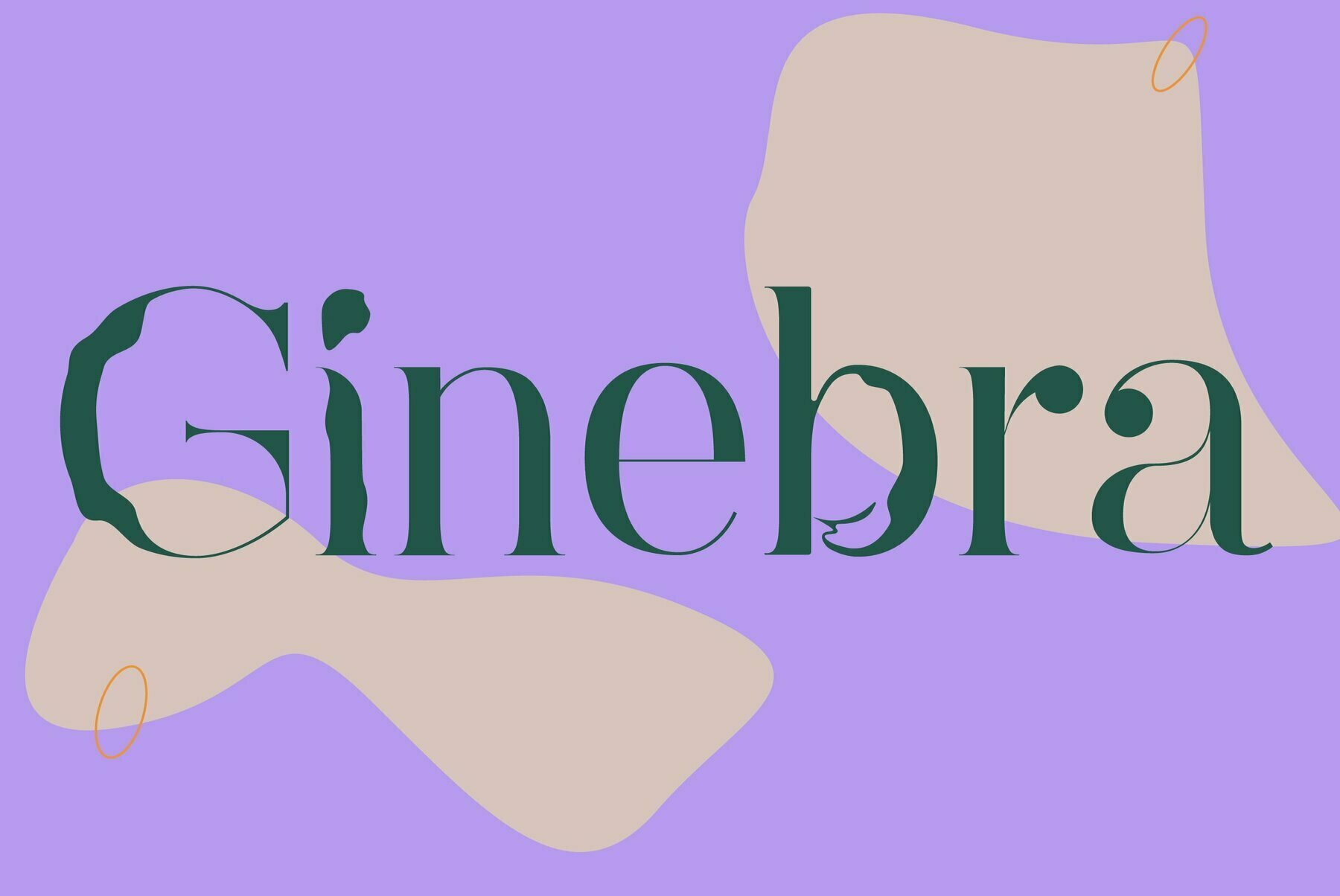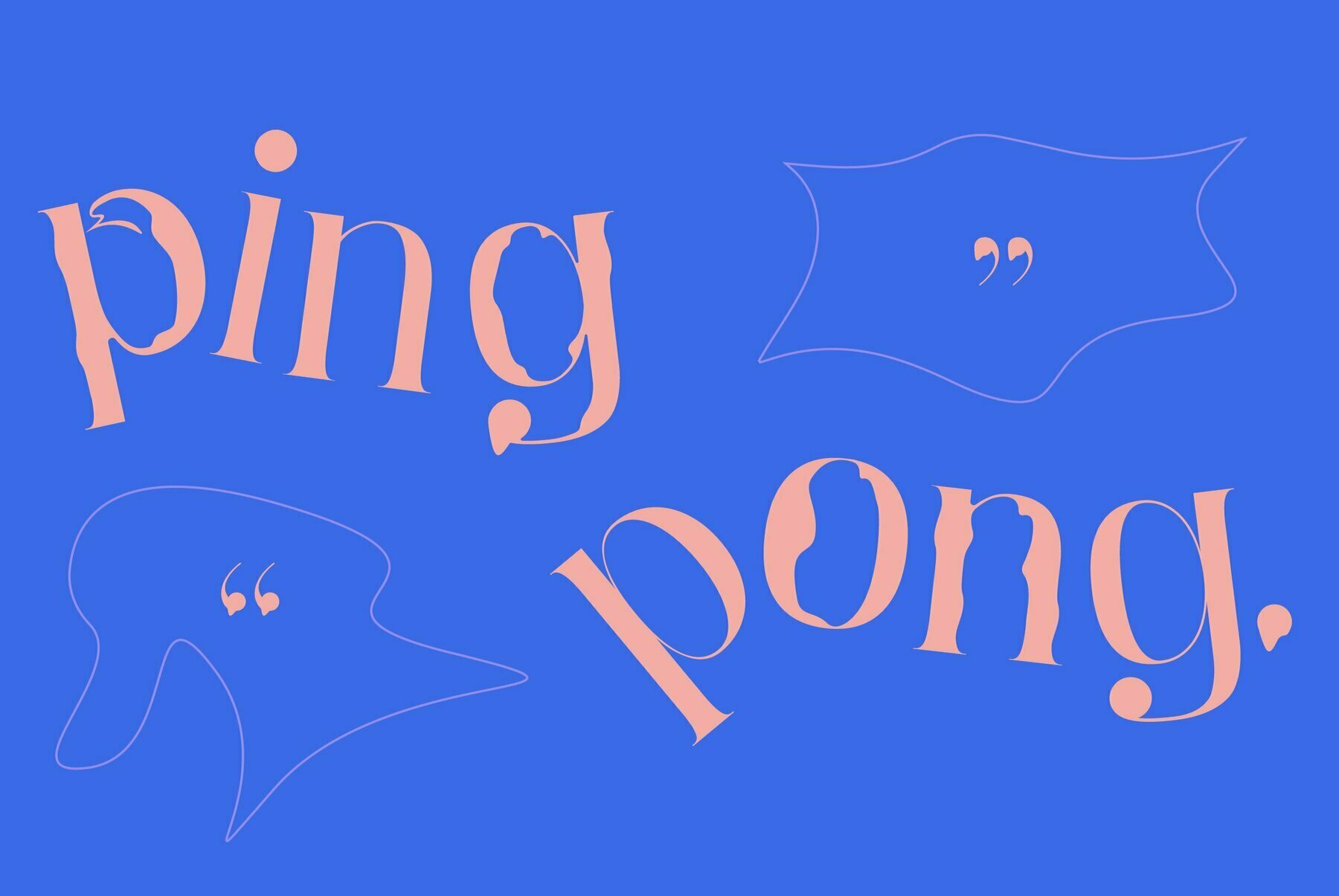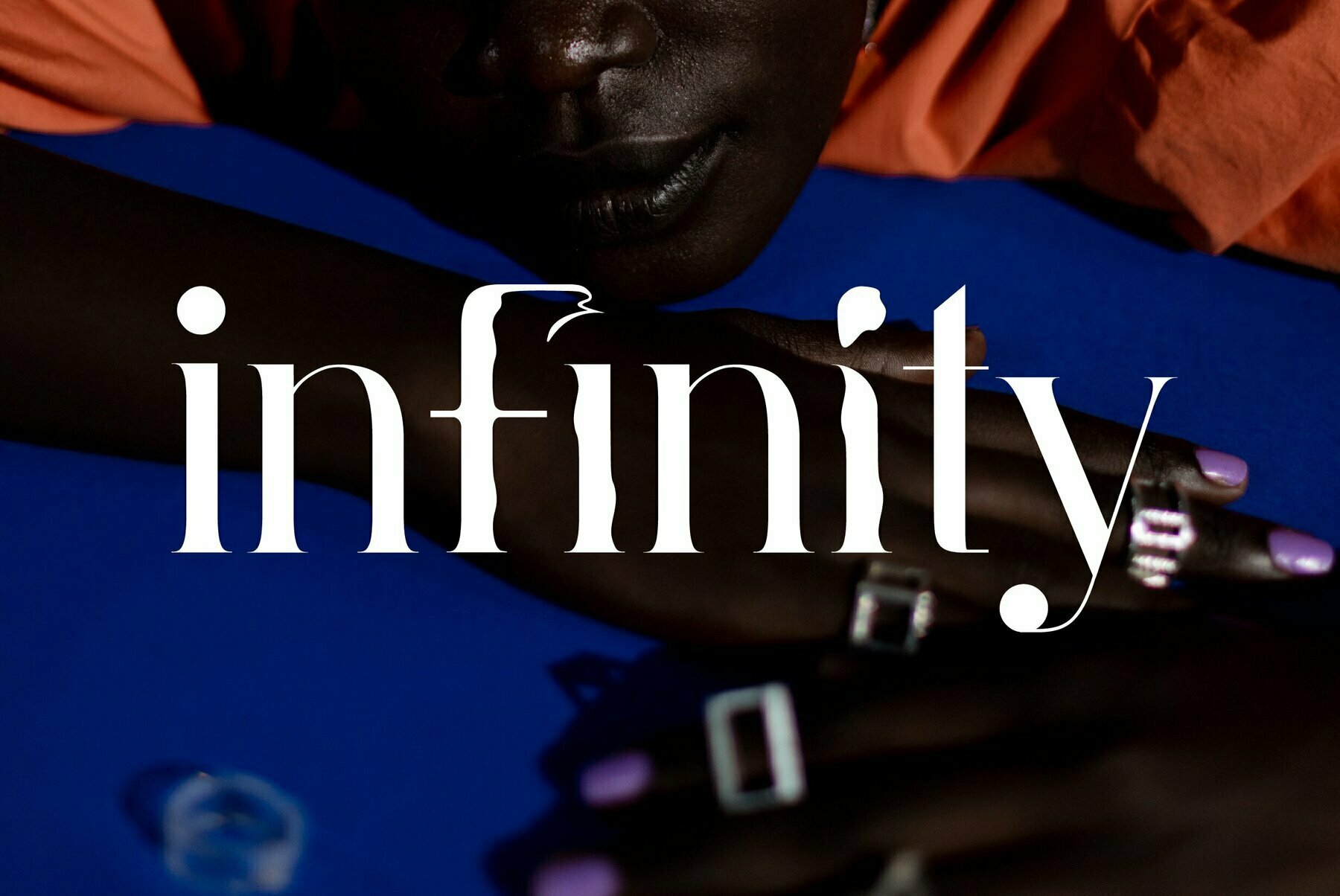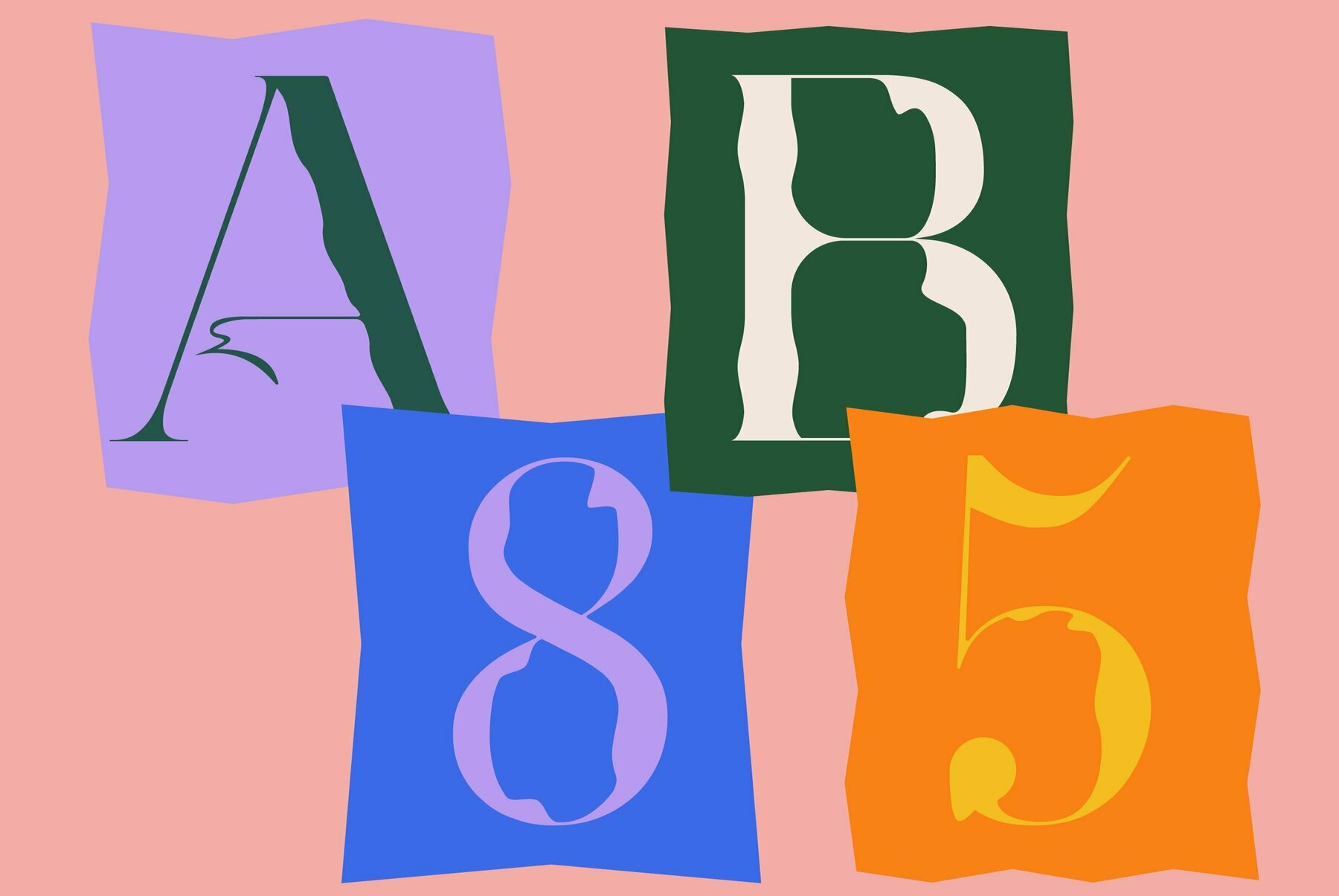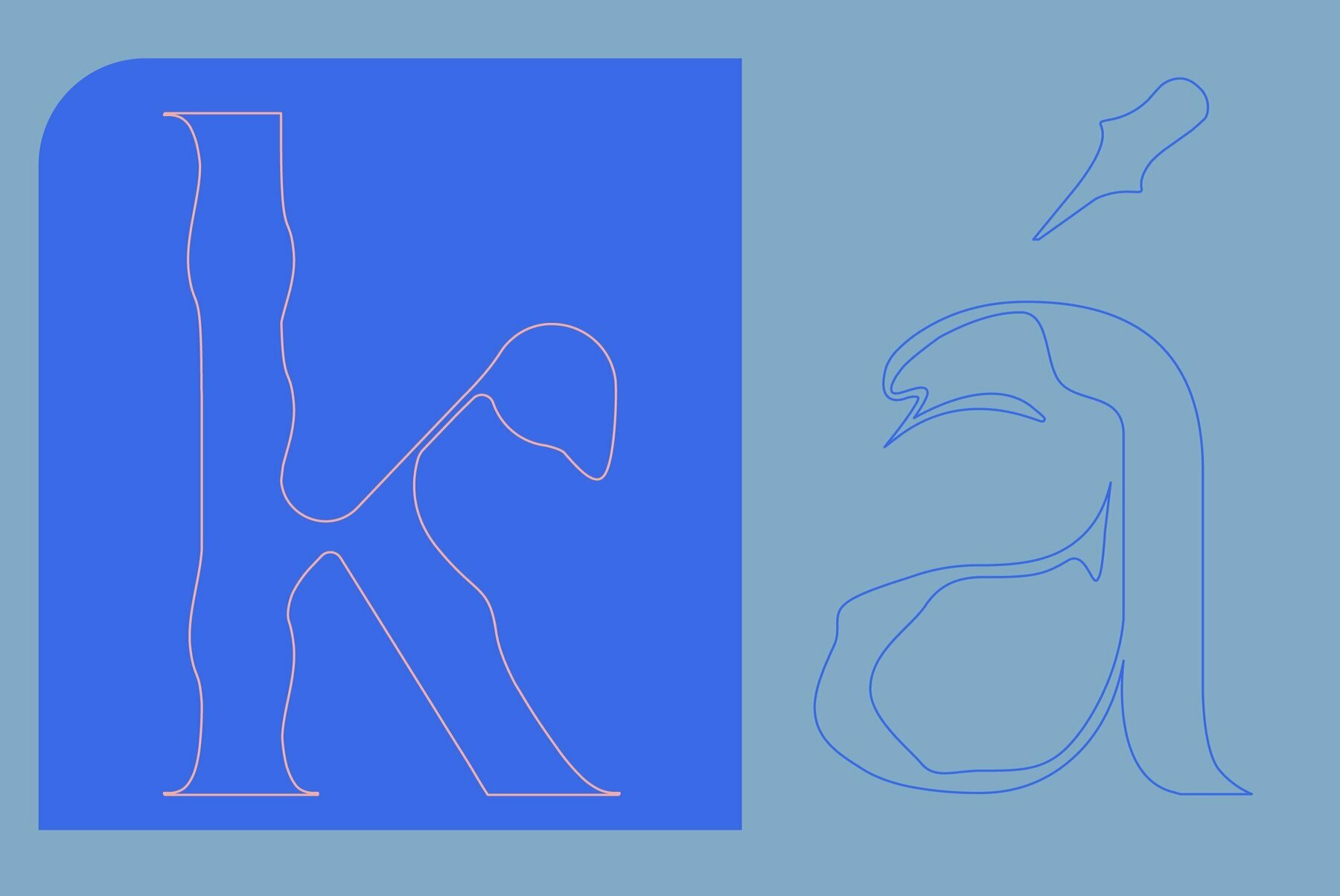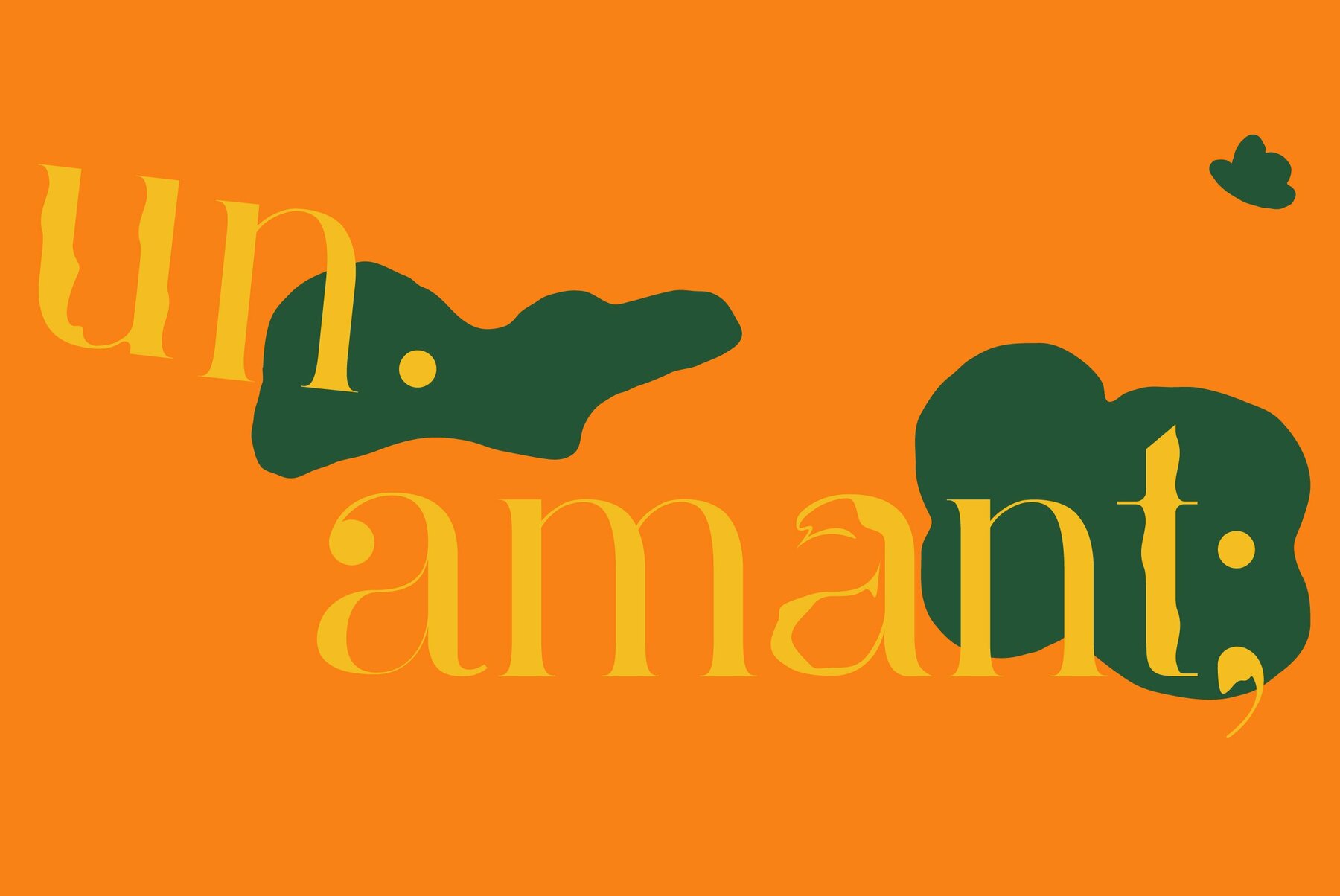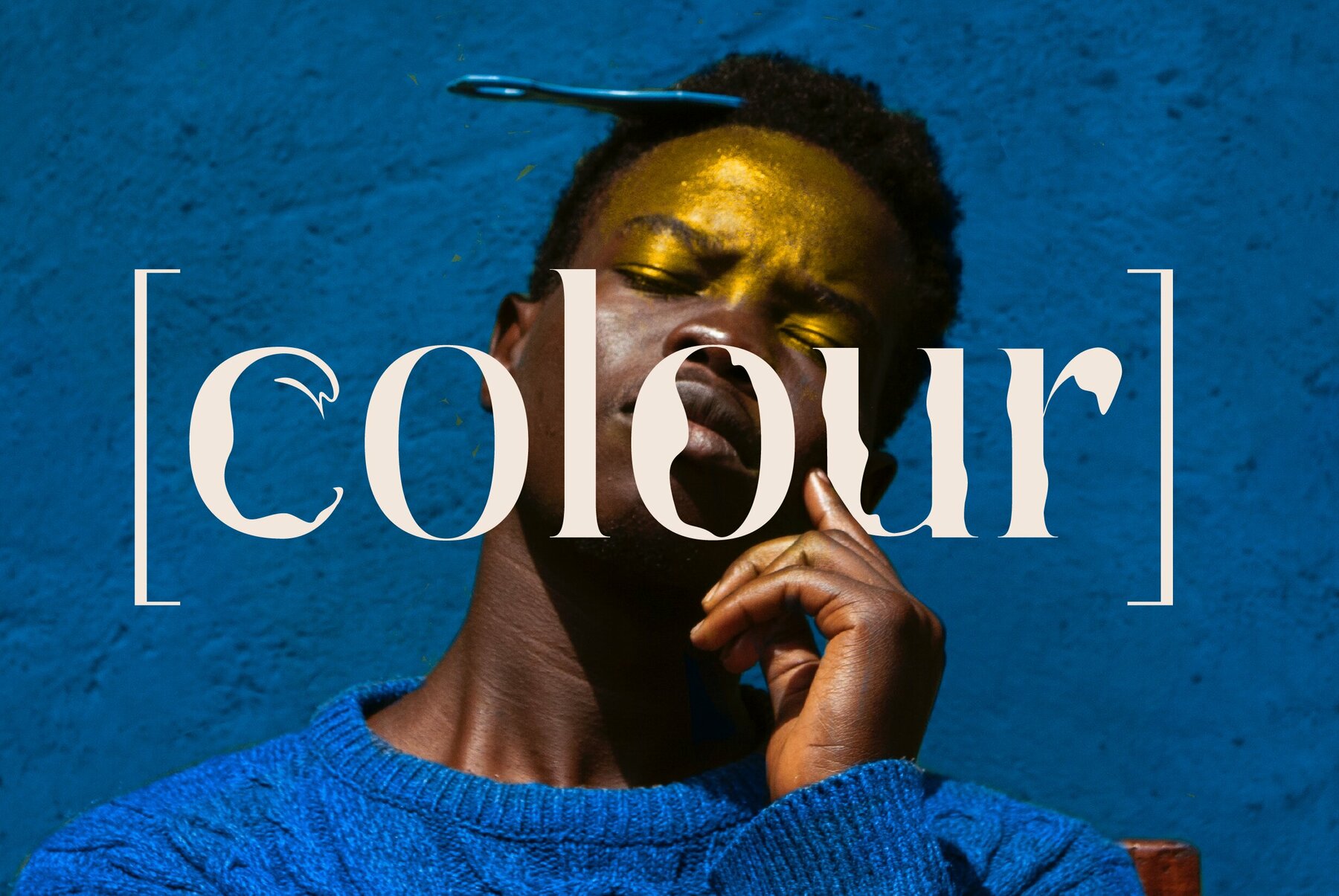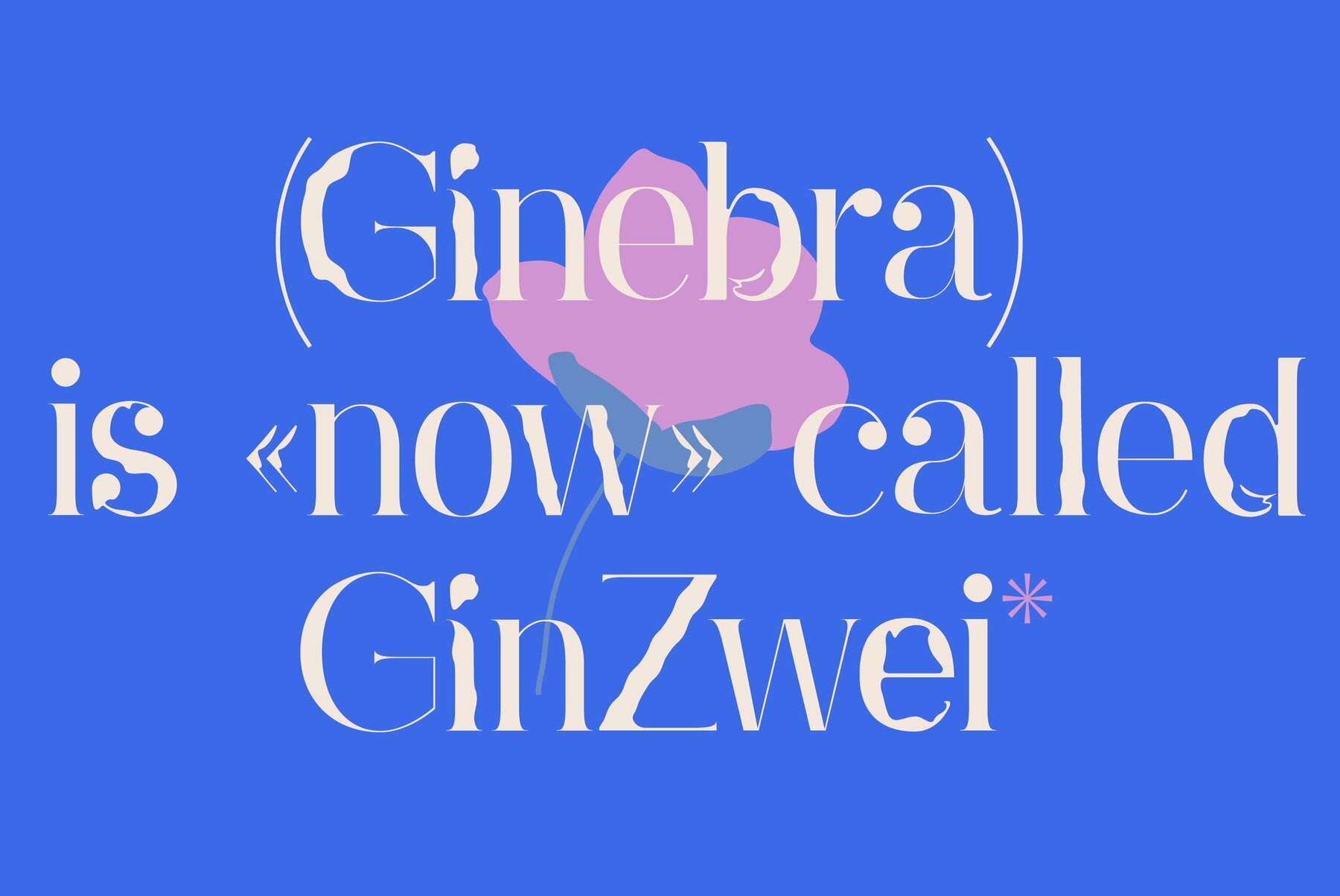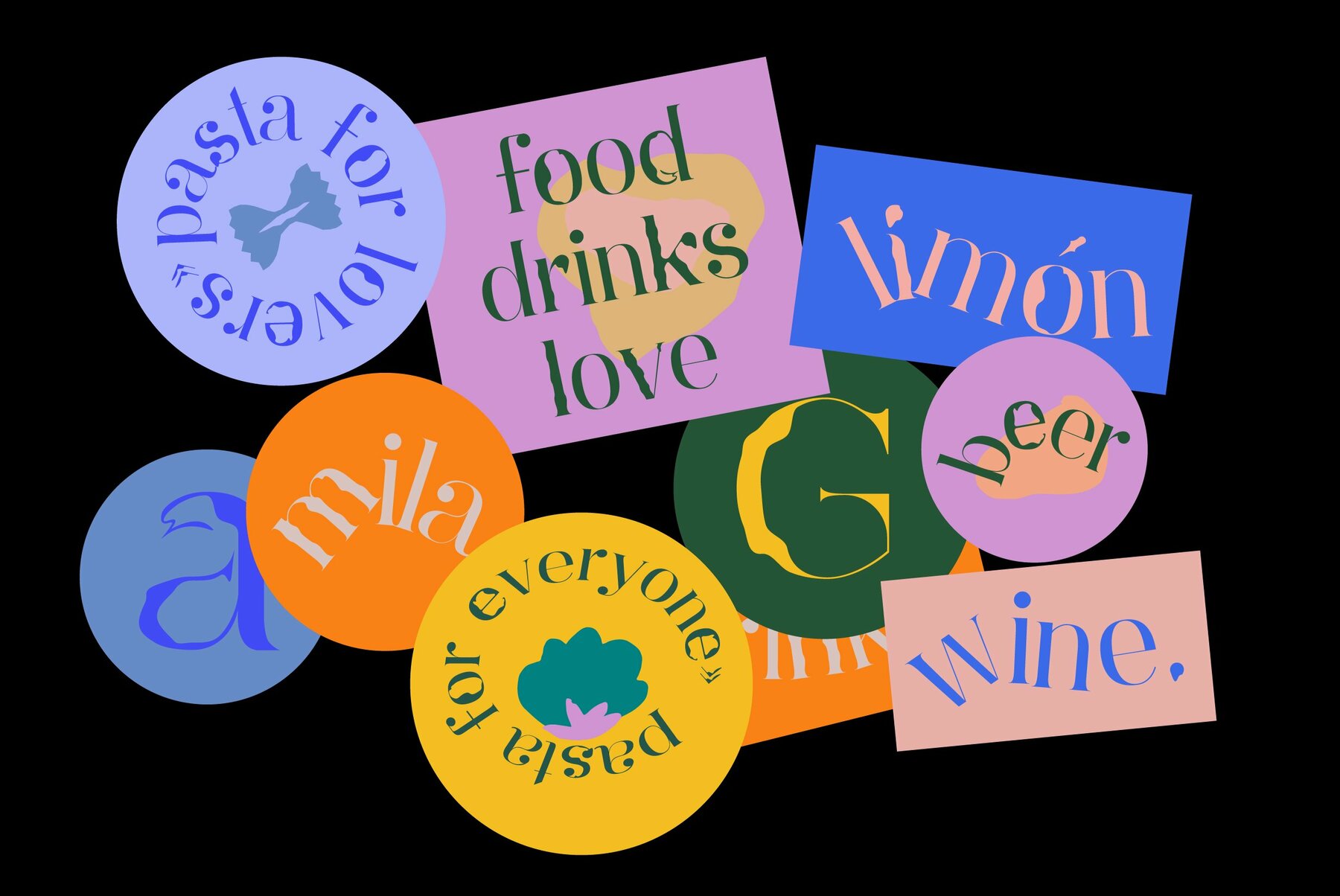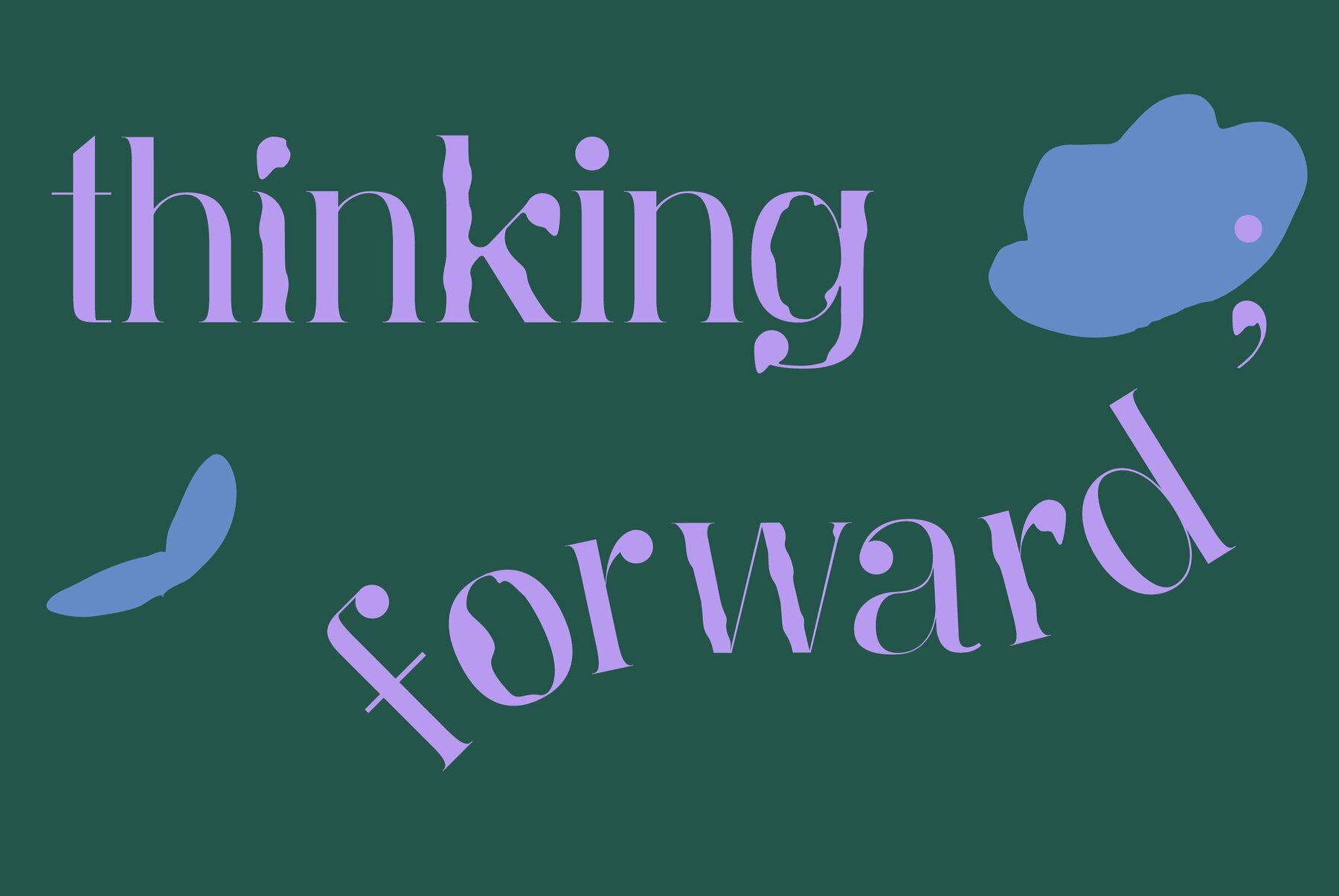
The new version of Ginebra (GinZwei) has two variables: regular & irregular. Ginebra is an elegant and fun Didot typeface. Ginebra feels like something out of a fashion magazine—enticing and sexy. There’s plenty to discover hidden in this font. Ginebra can be used with different visual effects for different types of designs because it is such a versatile typeface.